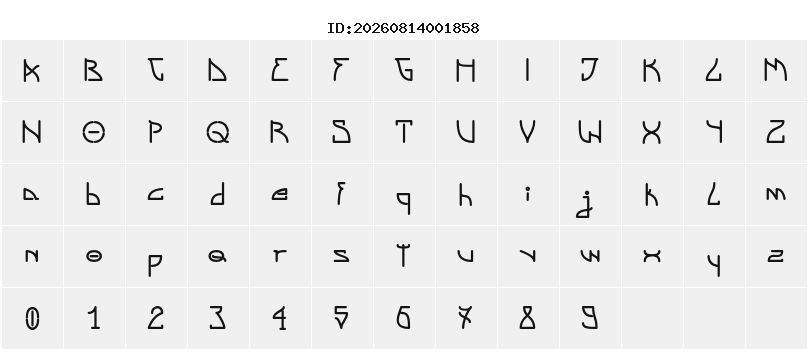
Szwederowo Preview
• Font Name: Szwederowo
• Designer: Marcin True Bob Zdrojewski
About Szwederowo.otf
Szwederowo.otf is a modern, elegant sans-serif font designed for ultimate readability and visual harmony. Perfect for branding, headlines, web design, and print materials.